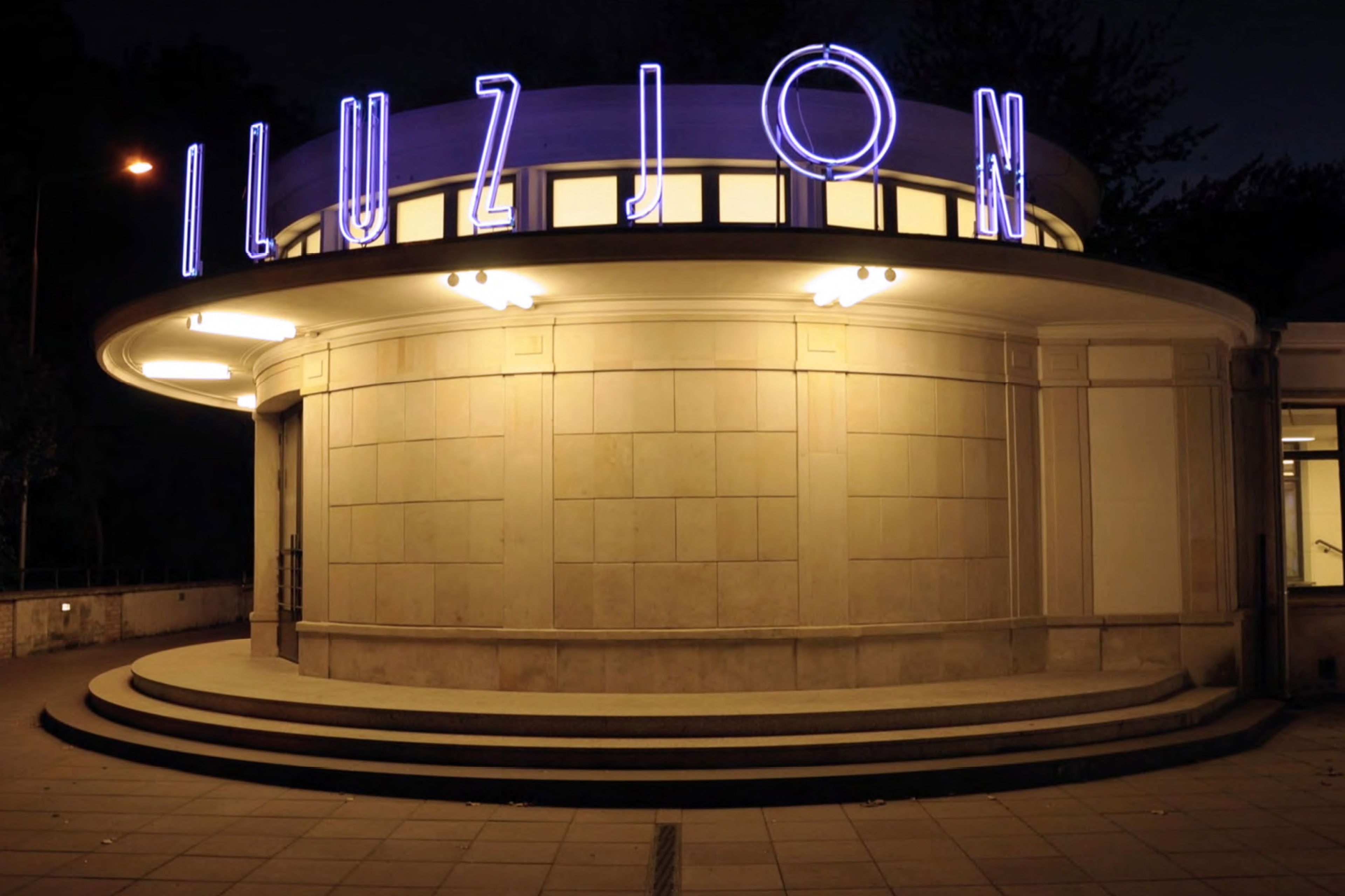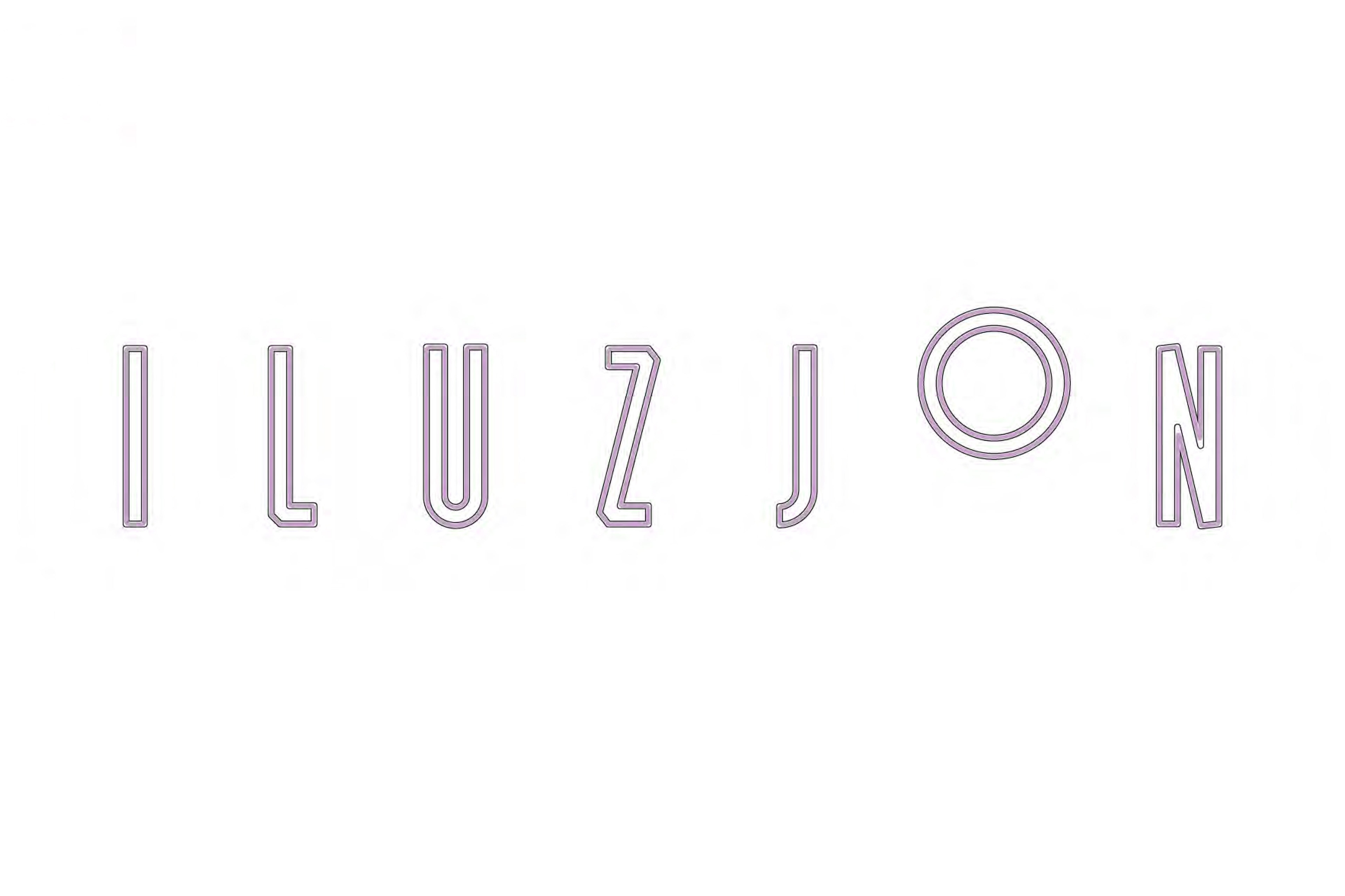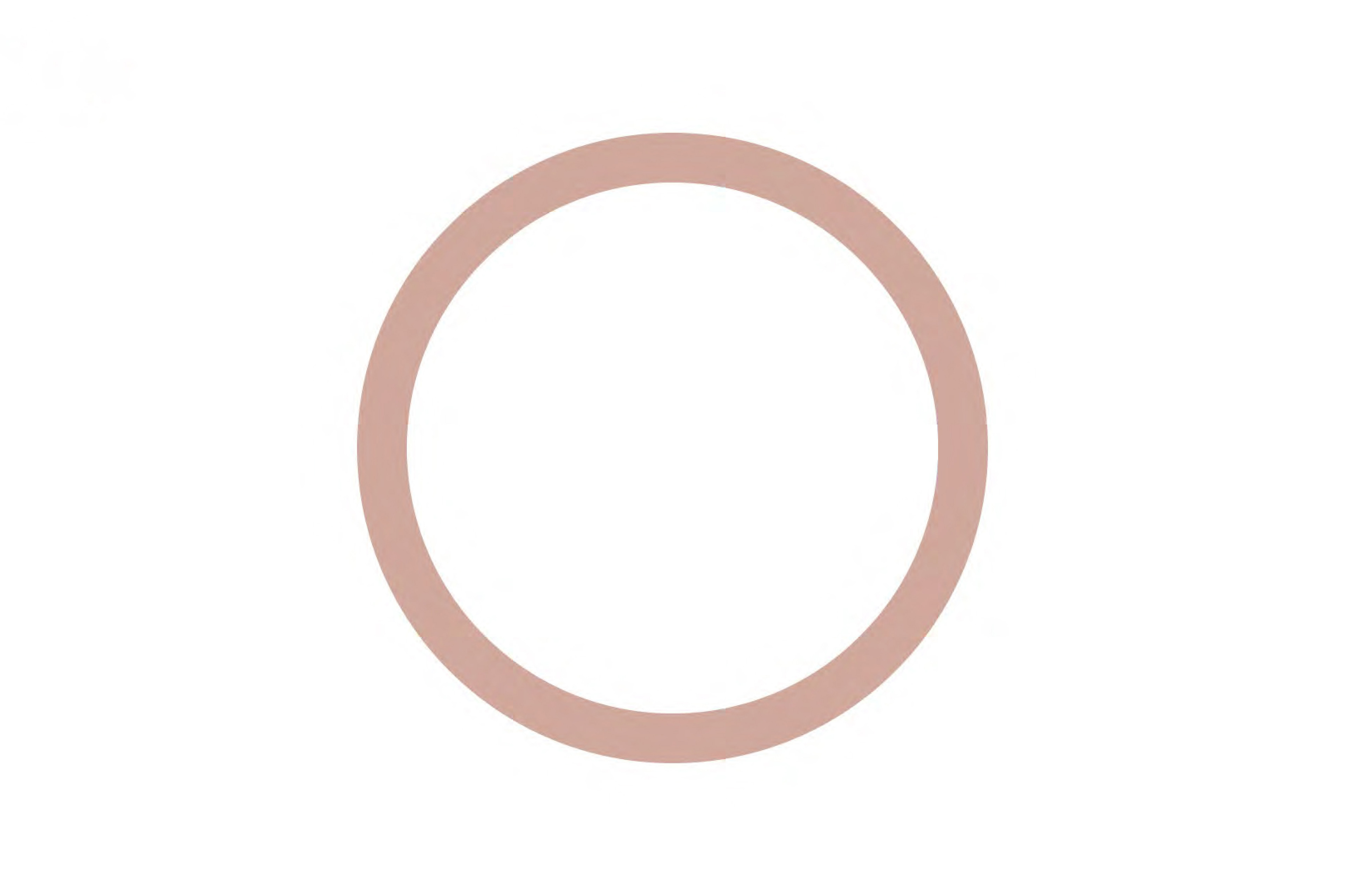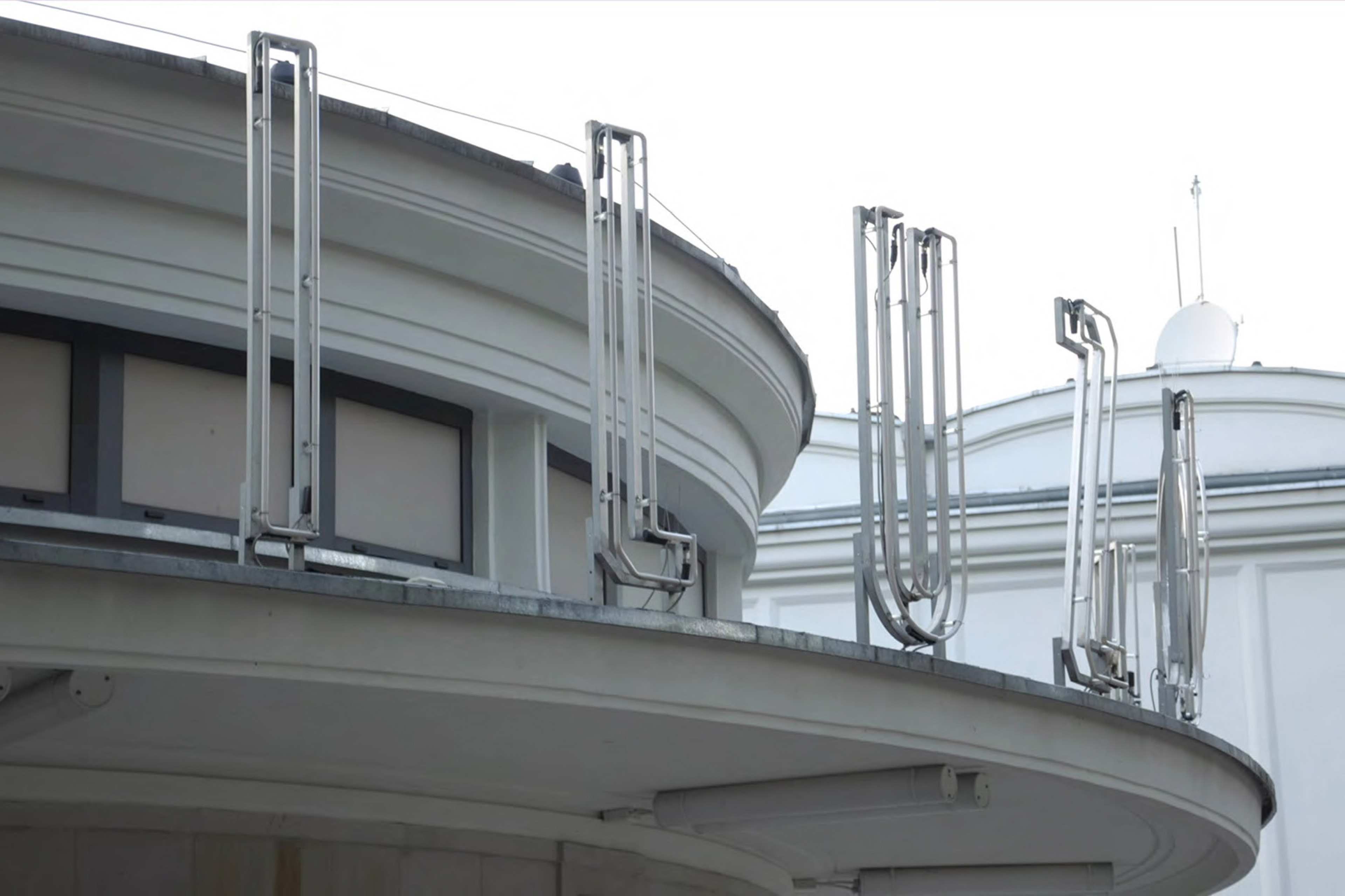
iluzjon
Project for Filmoteka Narodowa / FINA. Neon sign and visual identification of the renovated Iluzjon cinema. The starting point for creating the visual identification and the neon sign was the restored building, now included in the list of architectural monuments, and the name of the cinema — Iluzjon. The typography draws inspiration from the most characteristic element of the building, the rotunda, and the etymology of the word „illusion”, which conveys the concept of illusion. Rhythmic narrow letters and a convex, round „o” create a characteristic neon sign, which also became the cinema’s logo.